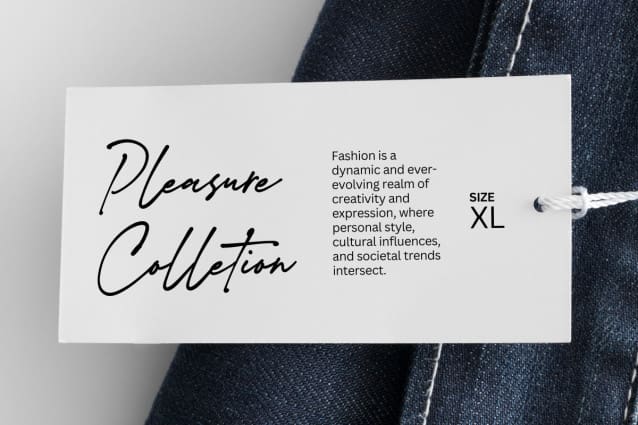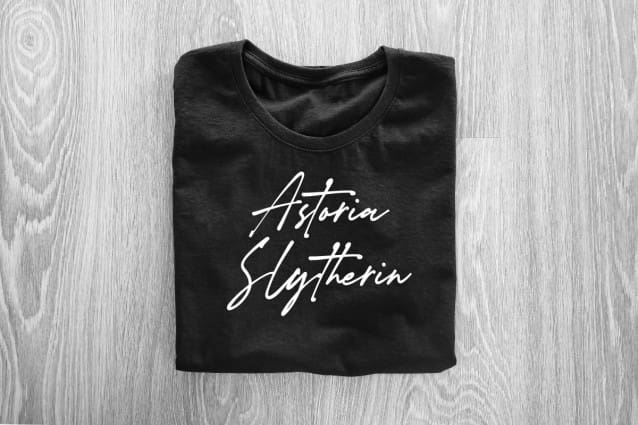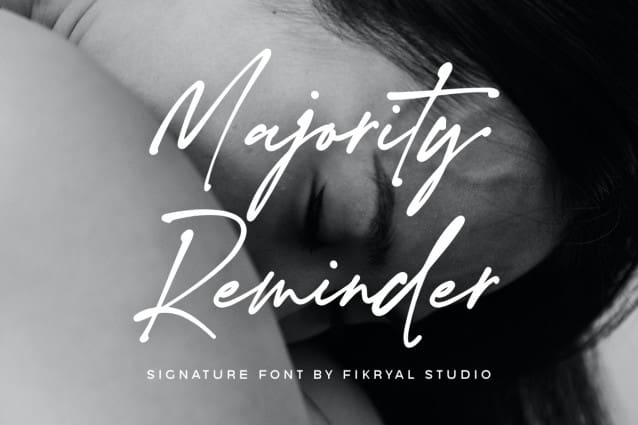
Majority Reminder Font
Majority Reminder Font is a signature script font that captures the essence of natural handwriting — stylish, smooth, and effortlessly elegant. Designed for those who value sophistication, it’s perfect for projects that need a personal yet luxurious touch.